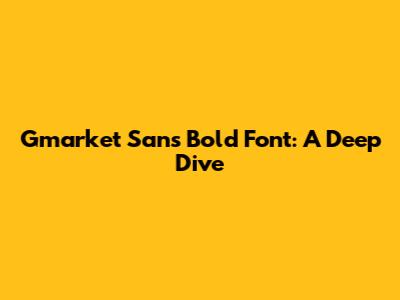
Gmarket Sans Bold Font: A Deep Dive
Hey guys! Ever stumbled upon a font and thought, "Wow, I love this!"? Well, today, we're going to dive headfirst into one such font: Gmarket Sans Bold. Specifically, we'll be looking at the Gmarket Sans TTF Bold version, often associated with the ID 5425653944. This font has become quite popular, especially in certain regions and for specific design needs. This article is your ultimate guide, covering everything from its characteristics and usage to where you can find it and how to leverage it in your designs. It's more than just a font; it's a statement, a visual voice that can significantly impact how your message is perceived. So, buckle up; we are about to journey through the world of typography with a focus on this fantastic font.
Unveiling Gmarket Sans Bold
So, what exactly is Gmarket Sans Bold? In essence, it's a bold and modern sans-serif typeface. Sans-serif fonts are known for their clean, straightforward appearance, and this one amplifies that with its robust design. The "bold" in the name indicates its heavier weight, meaning the strokes that make up each letter are thicker than the regular version. This makes it incredibly readable, especially at larger sizes or when used in headlines. You'll often find it used in contexts where clarity and impact are key. Whether you're a seasoned designer or someone who just appreciates a good font, understanding the core aspects of Gmarket Sans Bold is essential. It's not just about aesthetics; it's about functionality, readability, and the overall message you want to convey. The design of Gmarket Sans Bold typically includes a slightly rounded appearance, making it feel friendly and approachable. The typeface is often considered versatile, making it suitable for a wide range of applications, from digital interfaces to printed materials. The specific version we're examining, often tagged with the ID 5425653944, ensures that you are getting the correct weight and style, offering a visual punch in your designs. Think of it as the strong, reliable friend that ensures your message resonates.
When we analyze the characteristics of Gmarket Sans Bold, we notice several key elements. The letterforms are designed to be clear and distinct, contributing to high readability. The bold weight ensures that your text stands out, perfect for drawing attention to critical information. The font’s modern design lends itself to various applications, including web design, mobile apps, and branding. The font's versatility is a significant advantage, allowing it to adapt to different design contexts, from elegant to playful. Moreover, the careful balance between its weight and form ensures that it remains aesthetically pleasing without being overwhelming. The font's character set is generally comprehensive, supporting various languages and special characters. Its accessibility features make the font even more practical. Consider, too, how its simplicity enhances legibility, making it an excellent choice for user interfaces where clarity is paramount. Furthermore, Gmarket Sans Bold is often chosen for its ability to convey a sense of modernity and authority.
Key Features and Characteristics
Let’s get into the nitty-gritty, shall we? Gmarket Sans Bold has several standout features that make it a favorite. First off, its boldness ensures maximum impact. This is not a font that whispers; it shouts – in a good way, of course! This is super useful for headlines, titles, and anywhere you need to grab someone's attention instantly. The font's design often leans towards a slightly rounded shape, which gives it a friendly and approachable feel. This is a subtle but effective way to make your design feel welcoming rather than cold and corporate. It strikes a good balance between readability and style, making it ideal for various applications. It’s also important to note its versatility. It can work well on both digital screens and in print. Think about it: a logo, a website header, a brochure – all of these can benefit from the presence of Gmarket Sans Bold. Also, the font tends to be well-spaced, which improves readability, and the overall design is modern and clean. It avoids being overly stylized, which allows it to integrate seamlessly into different design contexts. Its clean lines and bold strokes make it a great choice for modern design. Its legibility across devices and resolutions is another strong point, as is its comprehensive character set, ensuring that it supports a wide range of languages and special characters.
Understanding the nuanced characteristics is essential for effective usage. The thickness of the strokes is carefully calibrated to ensure that the font maintains its impact at various sizes. The design subtly balances geometric and organic shapes, providing a harmonious visual experience. The font's design subtly includes elements that promote effortless readability, especially in digital environments. Its inherent adaptability makes it well-suited for diverse design applications. The font typically adheres to modern typography principles, ensuring it's both aesthetically pleasing and functional. The overall design emphasizes clarity, ensuring that the message is conveyed effectively. Furthermore, Gmarket Sans Bold’s character design frequently includes refined details that enhance legibility, contributing to the font’s professional appearance. The well-thought-out design ensures it’s versatile and readable across different media.
Where and How to Use Gmarket Sans Bold
Alright, let's talk about where this font shines! Gmarket Sans Bold is like that amazing versatile tool; it’s suited for a variety of projects. Let's look at its applications. It's a go-to choice for headlines in websites, blogs, and marketing materials. Its bold weight ensures your headings will catch the eye. Think of it for your website's main title, the big, attention-grabbing text that tells people what your site is about. It's also great for creating logos and branding. Because it's clear and modern, it can give your brand a contemporary feel. The font is suitable for both digital and print media, which gives you more freedom to apply it. In digital contexts, such as user interfaces and mobile apps, it contributes to clear and easy-to-read designs. It's a great choice for mobile apps, ensuring text is readable, even on smaller screens. In print, think of posters, brochures, and even book titles. The font works well in larger formats. It’s a great choice for display text, where readability is crucial. You might use it in magazines, newspapers, or any form of print where you need to make a statement. The font's clarity is useful for conveying information. Moreover, it is used for social media graphics, ensuring that your message stands out. Its presence in various projects proves its adaptability. The key is to match the font to the message and design needs.